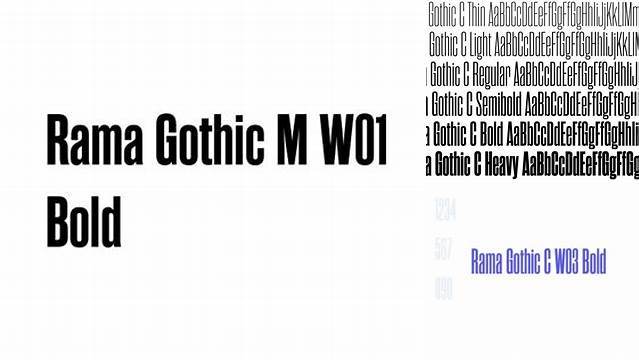
Hey guys, are you on the hunt for a killer font that screams gothic and grabs attention? Well, look no further because we're diving deep into the world of Rama Gothic Exp Bold, a font that's been making waves. And the best part? We'll show you how to snag a free download! We're talking about a font that's perfect for a whole bunch of projects, from eye-catching headlines to edgy designs. Get ready to transform your text into something truly remarkable!
What Makes Rama Gothic Exp Bold Font Special?
Alright, let's get down to brass tacks. What's the buzz around Rama Gothic Exp Bold? This font is a bold and powerful take on the gothic style. It’s got that classic, slightly intimidating vibe, but with a modern twist that makes it incredibly versatile. Imagine this: you're working on a poster for a rock concert, a design for a gaming website, or maybe even a logo for a clothing brand with an attitude. Rama Gothic Exp Bold just fits. It's not just about the look, though; it’s about the feeling. It’s about the impact you make with your words. It commands attention, and it’s memorable. That's what makes it special. The font’s design is clean, yet imposing, making it ideal for projects where you want to convey strength, sophistication, or a hint of mystery. The bold weight ensures your text is always readable, even at a distance or in busy layouts. We're talking about a font that can adapt to different design styles, so it’s a great choice for graphic designers, marketers, and anyone who loves typography. Whether you're crafting a website header, designing a flyer, or creating social media graphics, Rama Gothic Exp Bold offers a unique blend of classic style and modern usability. This font isn't just a tool; it's a statement.
The detailed design of each letter is what truly sets Rama Gothic Exp Bold apart. The designers paid attention to the subtle details, ensuring that each character fits perfectly within the overall aesthetic. This level of craftsmanship means that even when used in large blocks of text, the font remains appealing and readable. The font's flexibility allows designers to use it creatively across a variety of mediums, from print to digital. So, think about it; you’re not just downloading a font; you’re getting a key to unlock a whole new level of creativity. You can use it for headlines, subheadings, or even body text when you want to make a strong impact. The bold style of the font means it stands out effortlessly, perfect for grabbing the viewer’s attention. And remember, the free download we're talking about opens up a world of possibilities. It’s a simple step to take your design projects to the next level. Now, let’s not forget the importance of readability. While gothic fonts can sometimes be tricky, Rama Gothic Exp Bold balances style with legibility, ensuring your message is not only stylish but also easy to understand. It’s this balance that makes it an excellent choice for professional and personal projects. We want to make sure the design is cool and easy to read. This makes Rama Gothic Exp Bold a favorite among designers who want to make a statement without sacrificing functionality.